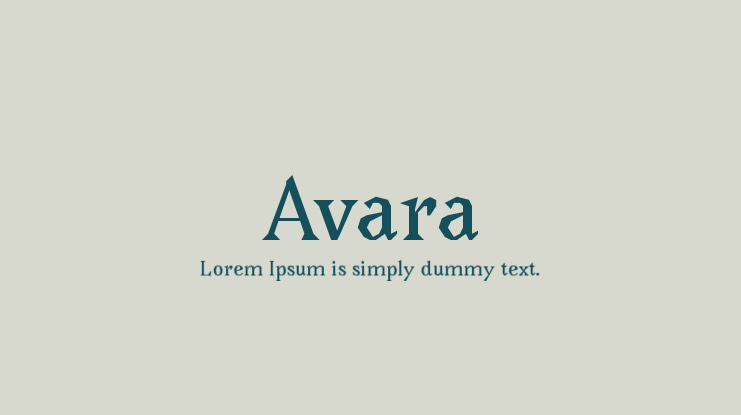
Avara Font
Libre transitional serif curveless font based on a square grid.
Created by Raphael Bastide with FontForge 2.0 (http://fontforge.sf.net). Edited by Wei Huang and Lucas Le Bihan